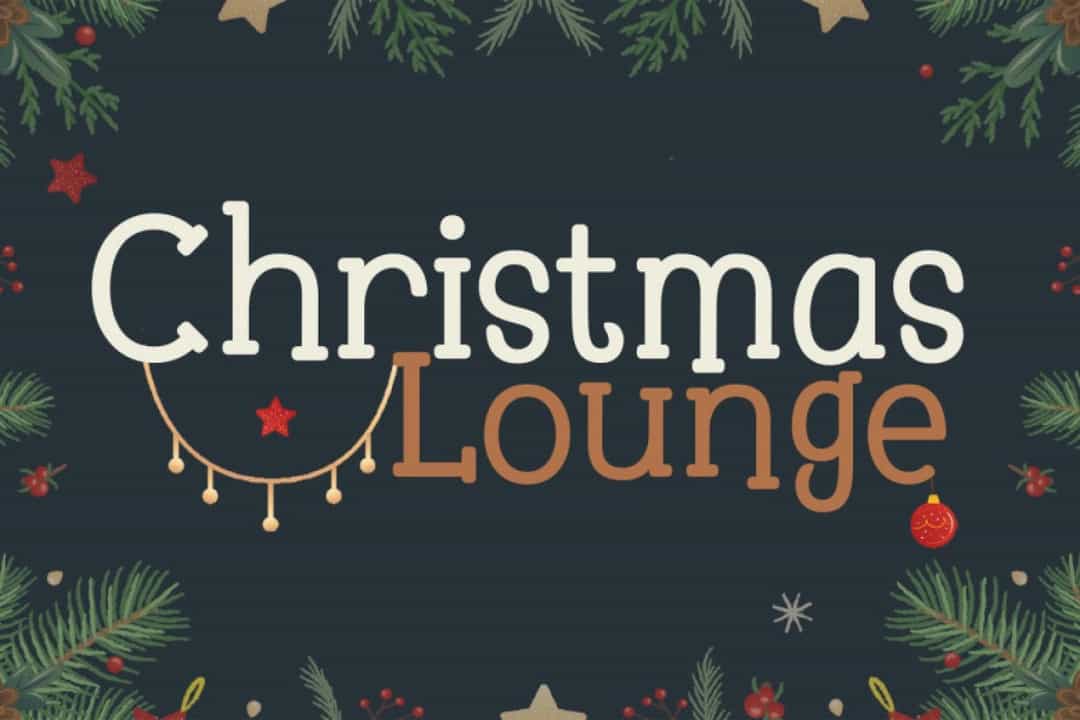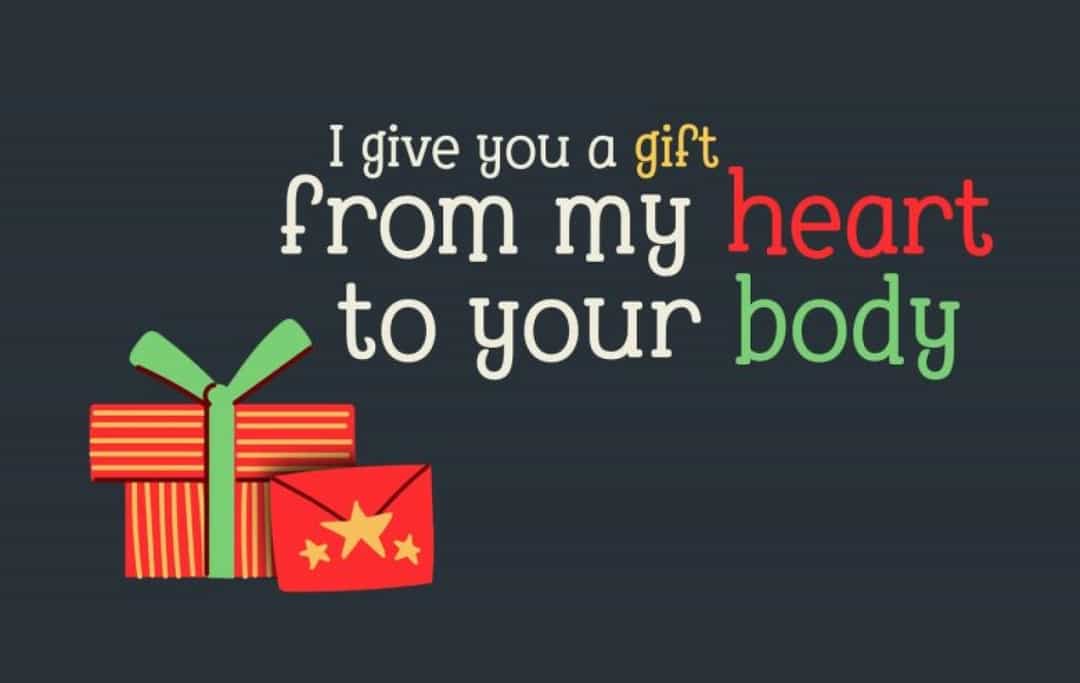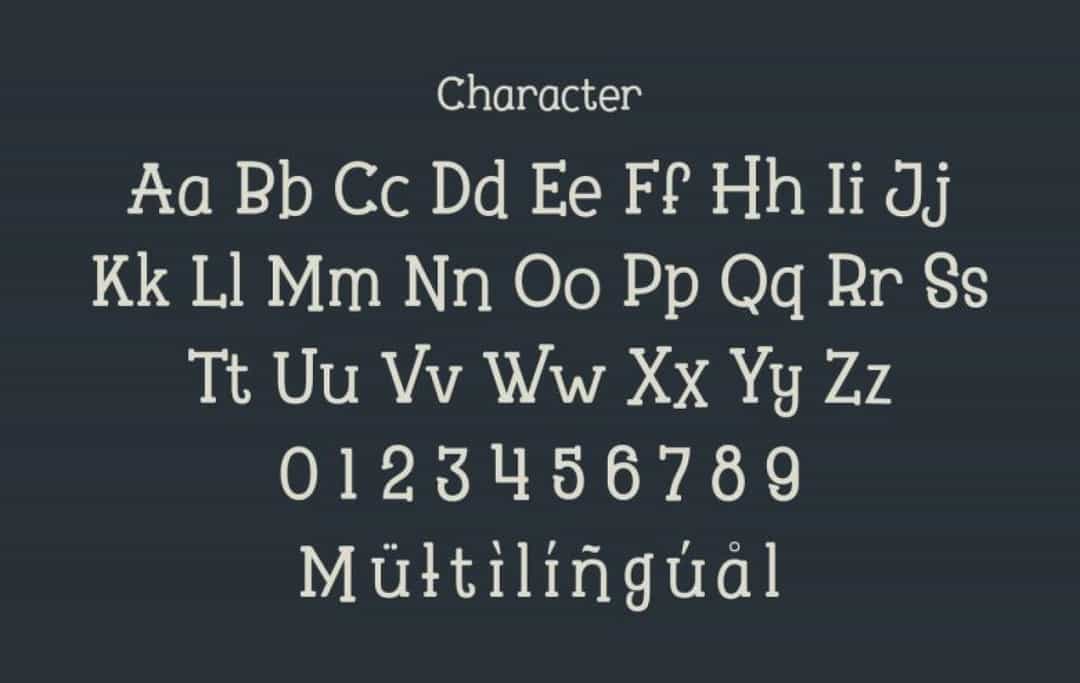
Christmas Lounge Font
Christmas Lounge Font is an exceptional display typeface character featuring two styles, both slanted and regular. Winterland font is suitable for posters, name cards logos, magazine covers banners t-shirt banners headers. Furthermore it may even be used for large-scale artwork projects.